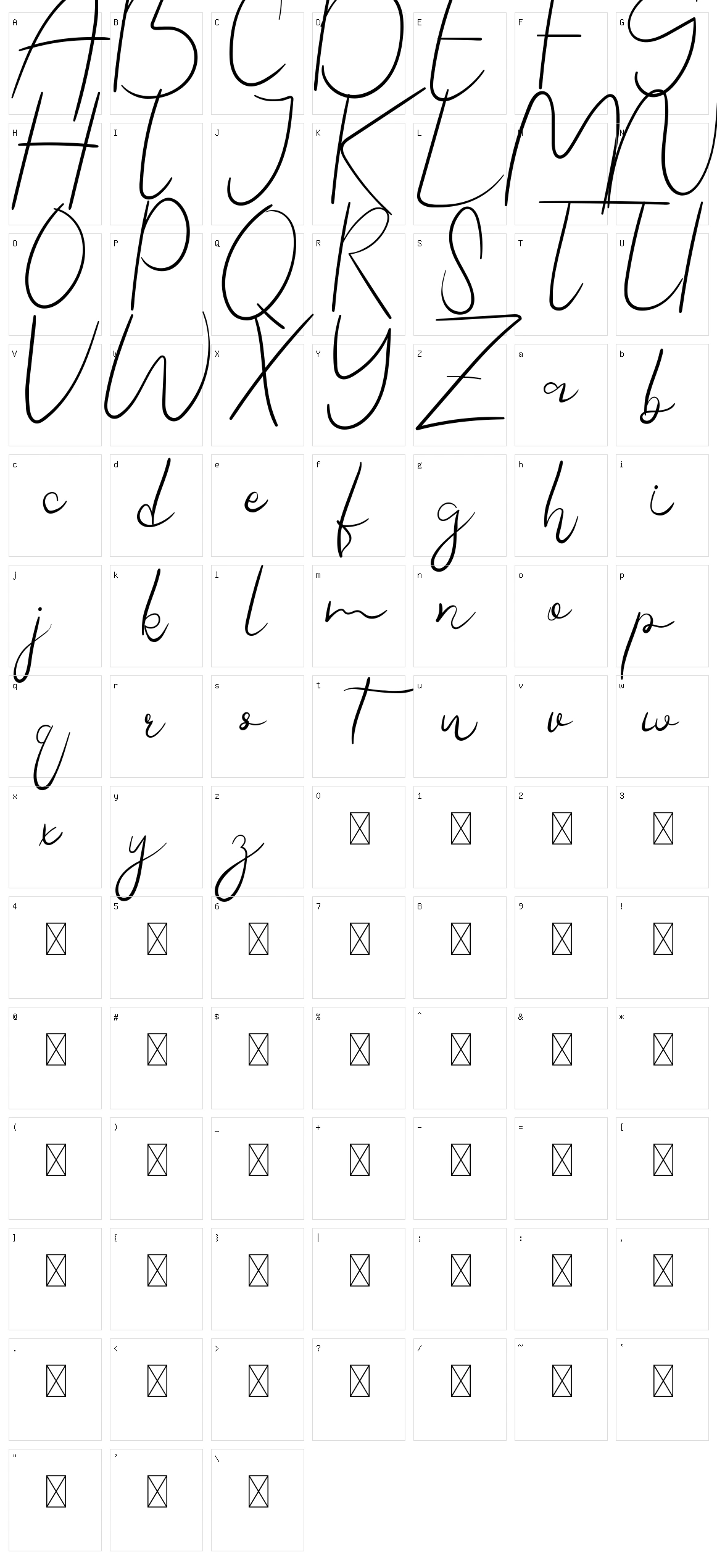
The free font Semiora is carefully designed by Edric Studio, showcasing a thoughtful balance of creativity and usability and falls under the Script font style. When you download the ZIP file, it contains only 14.83 KB of font files, making it lightweight and quick to download. Please review the license details below to understand permitted usage and distribution rights. If license information is not available, we recommend using this font for personal projects only or contacting the author directly for commercial usage permissions.